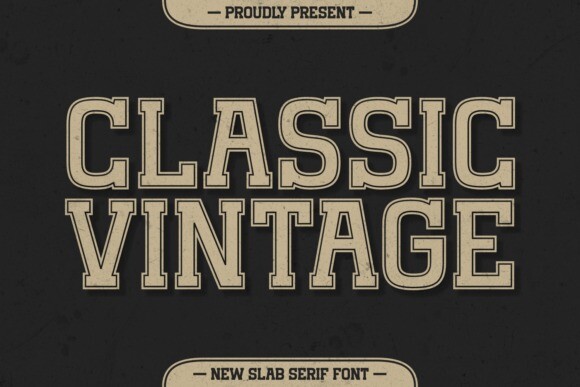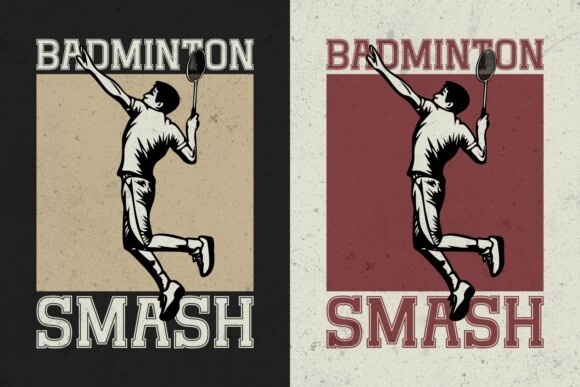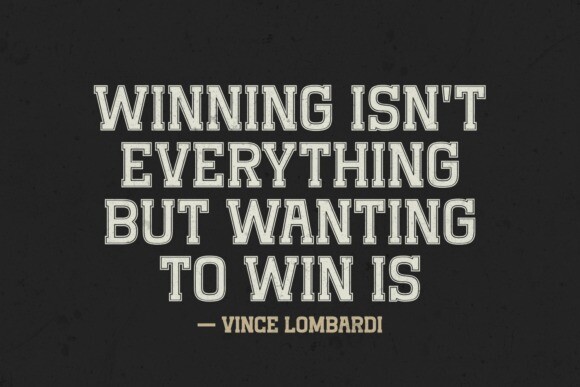
Classic Vintage Font
Classic Vintage Font is a versatile, playful, and retro display font. It is perfect for a wide spectrum of applications such as greeting cards, headlines, and many more! Add it confidently to your projects, and you will love the results.